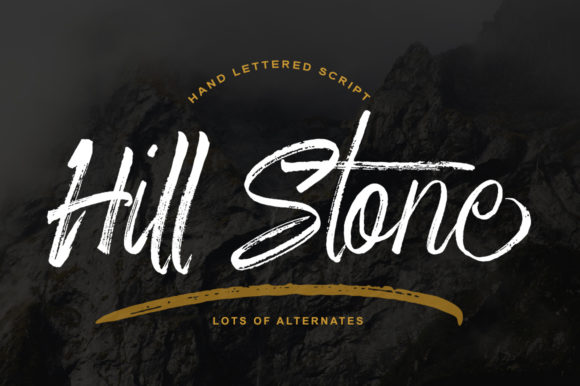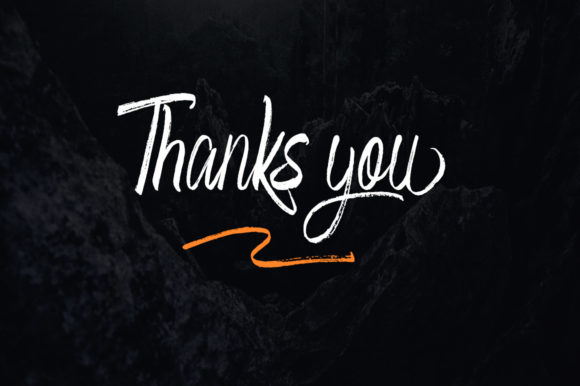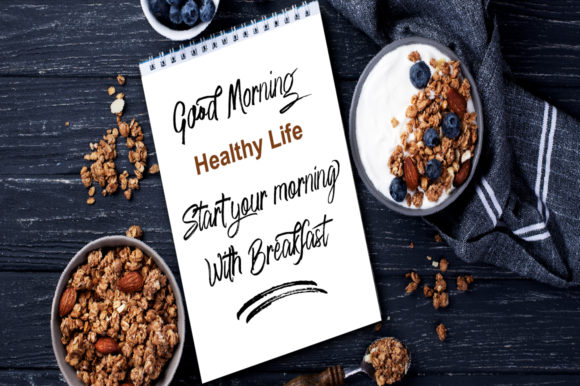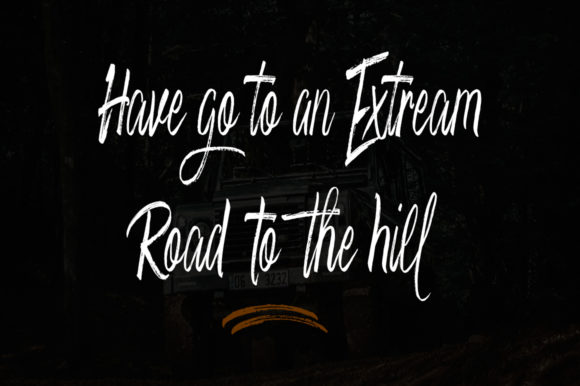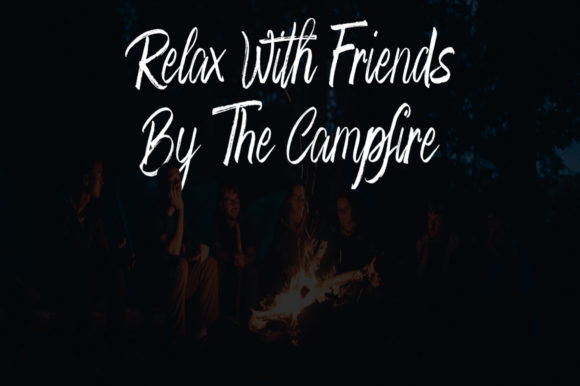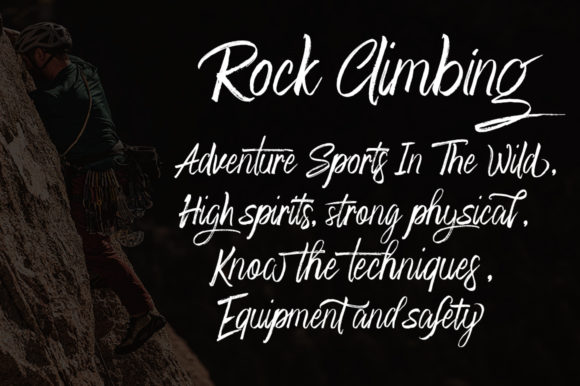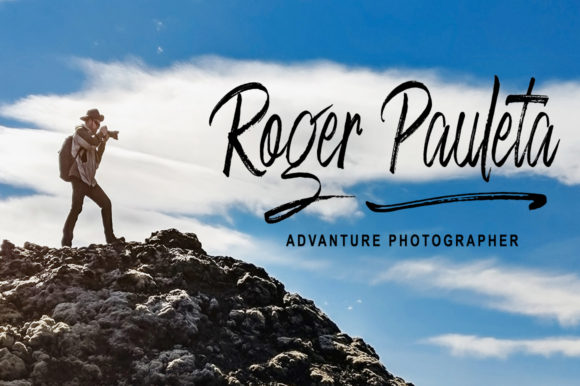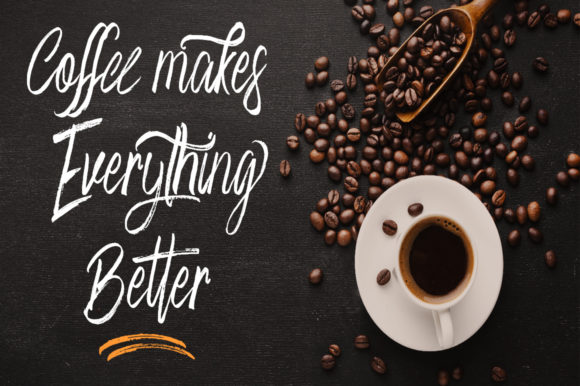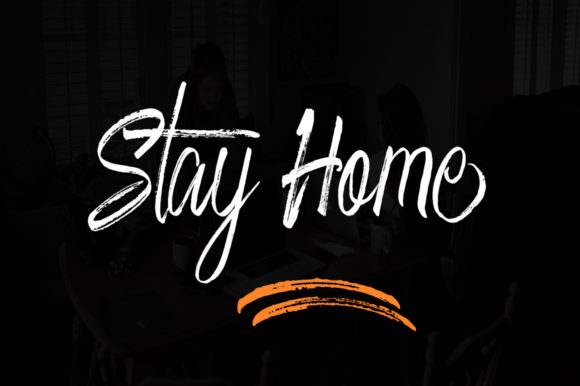
Hill Stone Font
About Hill Stone Font
Hill Stone is a bold and beautiful handwritten font, carefully created with the help of a brush pen. This font is PUA encoded which means you can access all of the glyphs and swashes with ease! It features a varying baseline, smooth lines, gorgeous glyphs and stunning alternates. Get inspired by Hill Stone’s unique and timeless style and elevate each of your designs!